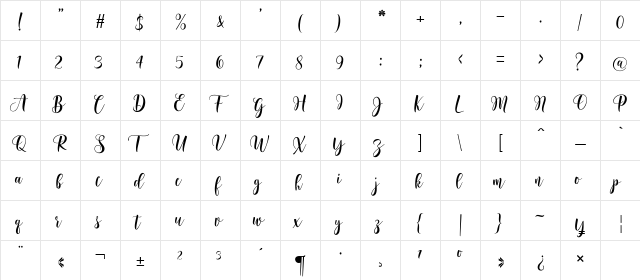
Basyirah Script Regular
| Foundry | Joel Maker |
| Designer | Zulfikar |
Design Context for Basyirah Script Typeface
Basyirah Script flows with the natural rhythm of handwritten lettering, making it ideal for designs that call for warmth and personal expression.
Font Pairing: Combine Basyirah Script with a simple geometric sans for maximum contrast — the tension between flowing curves and clean structure is a classic typographic pairing.
Pro Tip: Use Basyirah Script for short runs of text — names, titles, or taglines. Extended body copy in script faces tires the eye quickly.